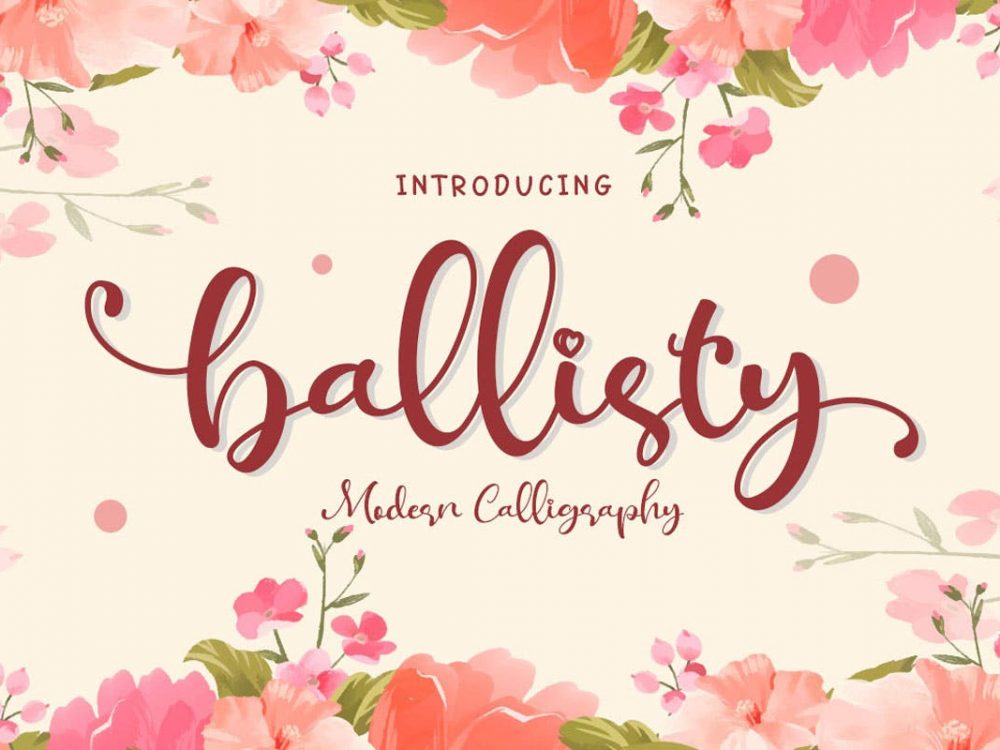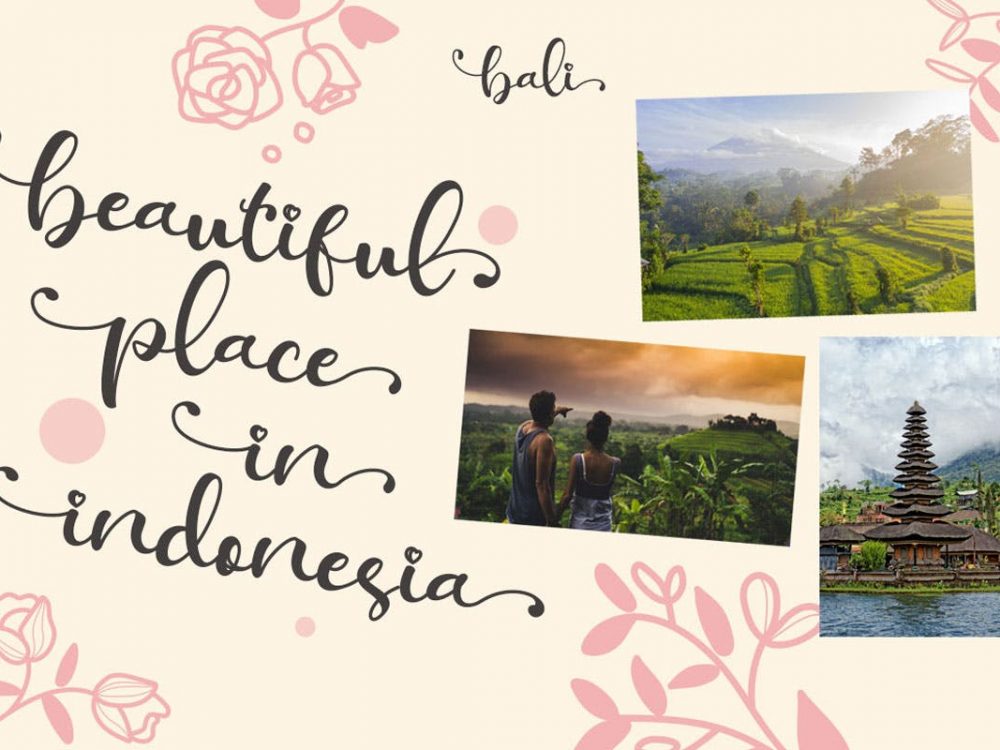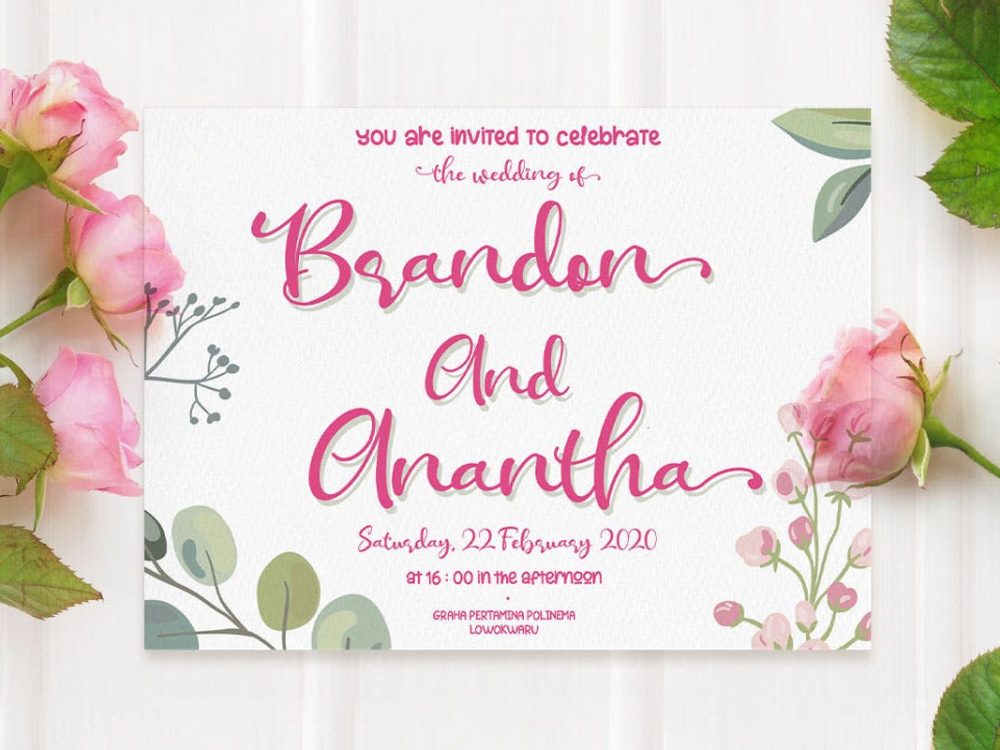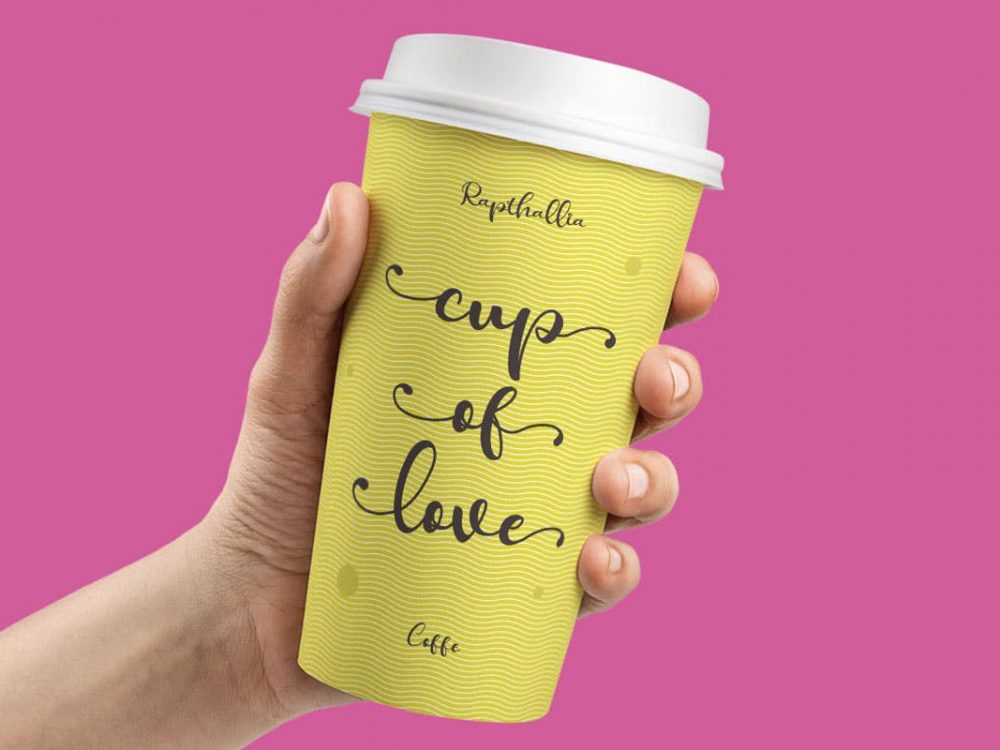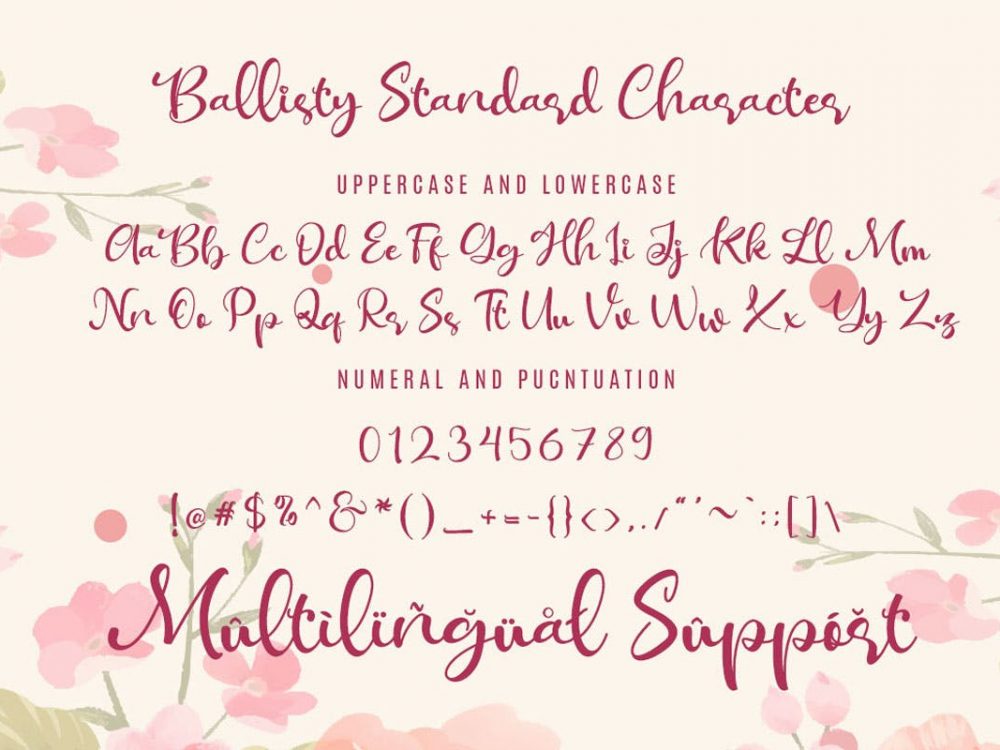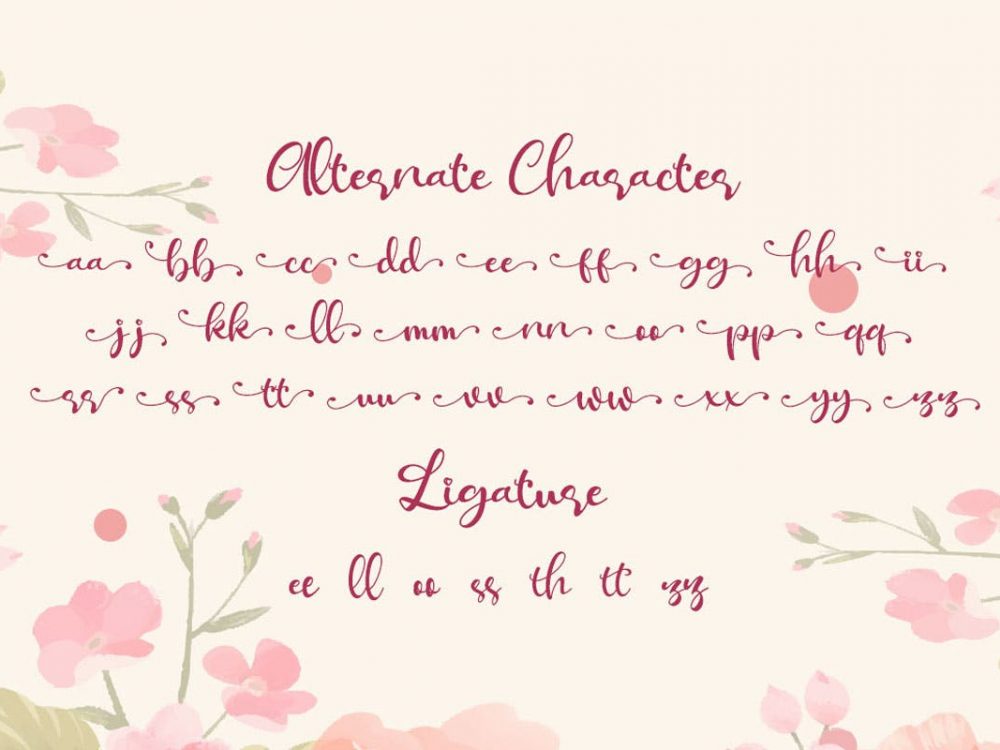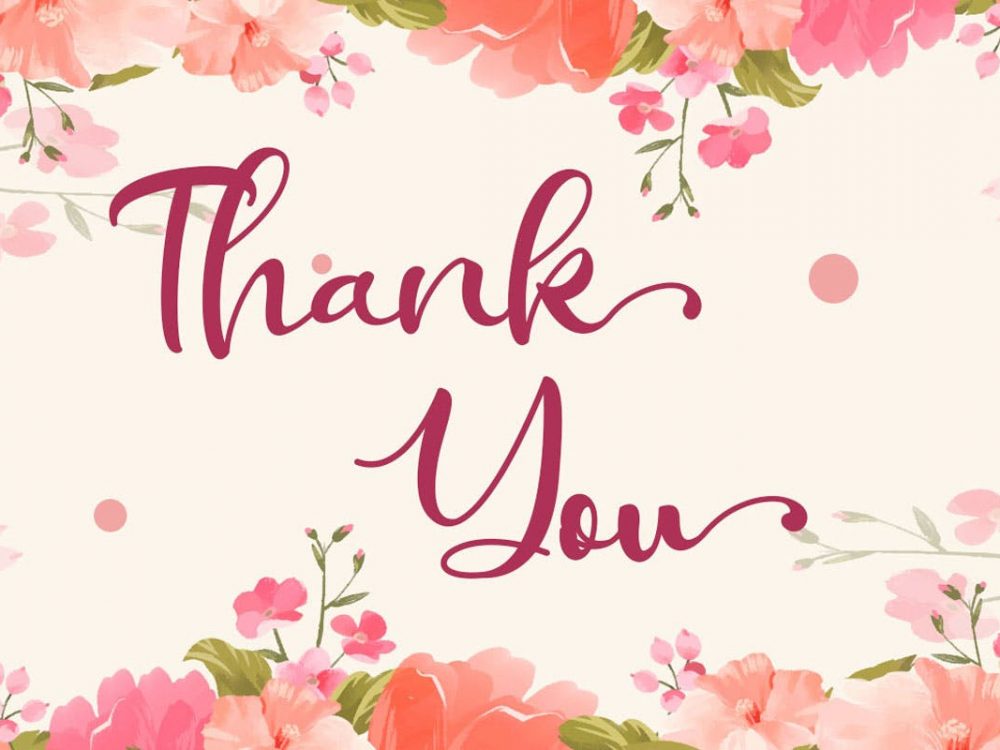
Free Ballisty Script Font
Free Ballisty Script Font is a handwritten script font featuring an elegant calligraphic style. This demo font is coming with a personal use license. This font will help you create unique design projects, your own corporate identity and improve your professional level. Use this font to create memorable posters, wedding invitations, cards, branding, flyers, and more. Improve the quality of your design projects using this font.